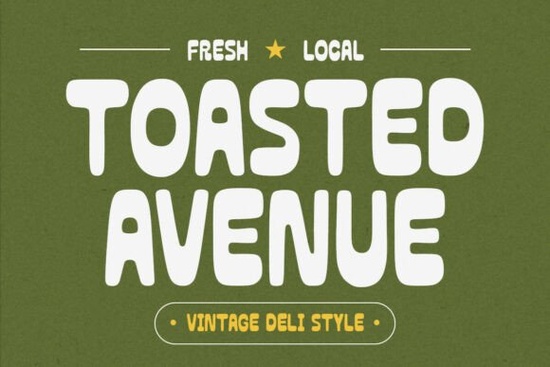
Toast is a bold display font that brings a warm, nostalgic vibe to any design project. Its unique style, inspired by vintage deli signs and cozy cafés, makes it perfect for menus, packaging, logos, and restaurant branding. Whether you're a designer, crafter, or small business owner, Toasted Avenue Font adds character and personality to your work. It’s especially great for projects that want to evoke a sense of comfort and familiarity.
Toasted Avenue Font stands out because of its chunky shapes and rounded corners. These details give it a handcrafted look that feels approachable and inviting. The font’s design is ideal for anything that needs to grab attention while still feeling welcoming. It works well in both digital and print formats, making it versatile for different types of projects.
When choosing a font for your design, consider the mood you want to create. Toasted Avenue Font is perfect for designs that aim to feel cozy and authentic. It’s especially useful for food-related businesses, like cafes, bakeries, or specialty shops. The font helps convey a sense of tradition and quality, which can be important for building trust with customers.
One of the best things about Toasted Avenue Font is how easy it is to use. It’s designed with clarity in mind, so it remains readable even at smaller sizes. This makes it a good choice for headings, banners, and other prominent text elements. You can pair it with simpler fonts for a balanced look, or use it on its own for a bold statement.
For designers who want to add a personal touch to their work, Toasted Avenue Font offers a way to express creativity without being too flashy. It’s not overly complex, but it still has enough detail to make an impact. This balance makes it suitable for a wide range of applications, from social media posts to printed materials.
When working with Toasted Avenue Font, keep in mind that it’s best used in situations where you want to create a friendly and inviting atmosphere. Avoid using it for large blocks of text, as it may become difficult to read. Instead, use it for headlines, logos, or short phrases that need to stand out.
Whether you’re designing for a local business or creating something for personal use, Toasted Avenue Font can help bring your vision to life. Its unique style and warm personality make it a valuable addition to any designer’s toolkit. With the right approach, it can enhance your work and make it more memorable.
Before finalizing your design, test the font in different sizes and contexts. This will help you see how it looks in real-world situations and ensure it meets your needs. If you’re unsure, try pairing it with other fonts to see how they interact. This can help you achieve a more polished and professional result.
Remember, the goal of any font is to support the message you want to convey. Toasted Avenue Font does this by adding a sense of warmth and authenticity. Use it wisely, and it can make a big difference in how your work is perceived.
- Try using Toasted Avenue Font for headlines or logos to add a unique touch.
- Pair it with simpler fonts for a balanced and professional look.
- Test the font in different sizes and formats to ensure readability.
- Use it in projects that aim to feel welcoming and authentic.